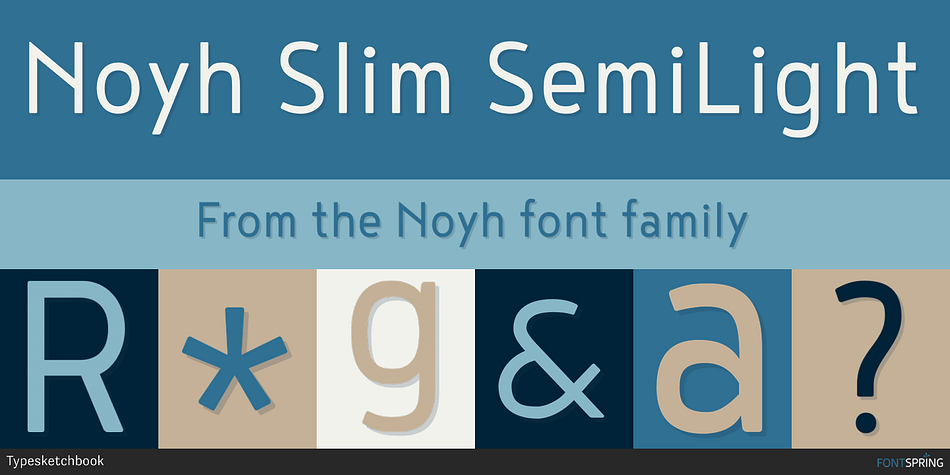
Noyh Slim SemiLight
Designed by Chatnarong Jingsuphatada, Noyh is a sans serif font family. This typeface has seventy-two styles and was published by Typesketchbook.
With an extensive research of Geometric Sans Serif of the 90’s to 00’s, we’ve created a different design of the typeface that increases its application and is fully supported on devices.
Noyh is suitable for headlines and body text alike, or it is also suited to be included as a part of your graphic design.
The set includes Normal format which has bulbous ends to reduce rigid demeanor of geographical forms and give individuality. The Rounded option which is altered to semicircular ends and some of the letter designs like an ‘a’ is changed following the altered ends. Slim and Slim Rounded narrows the width for space economy, giving a wider range of application for the typeface.